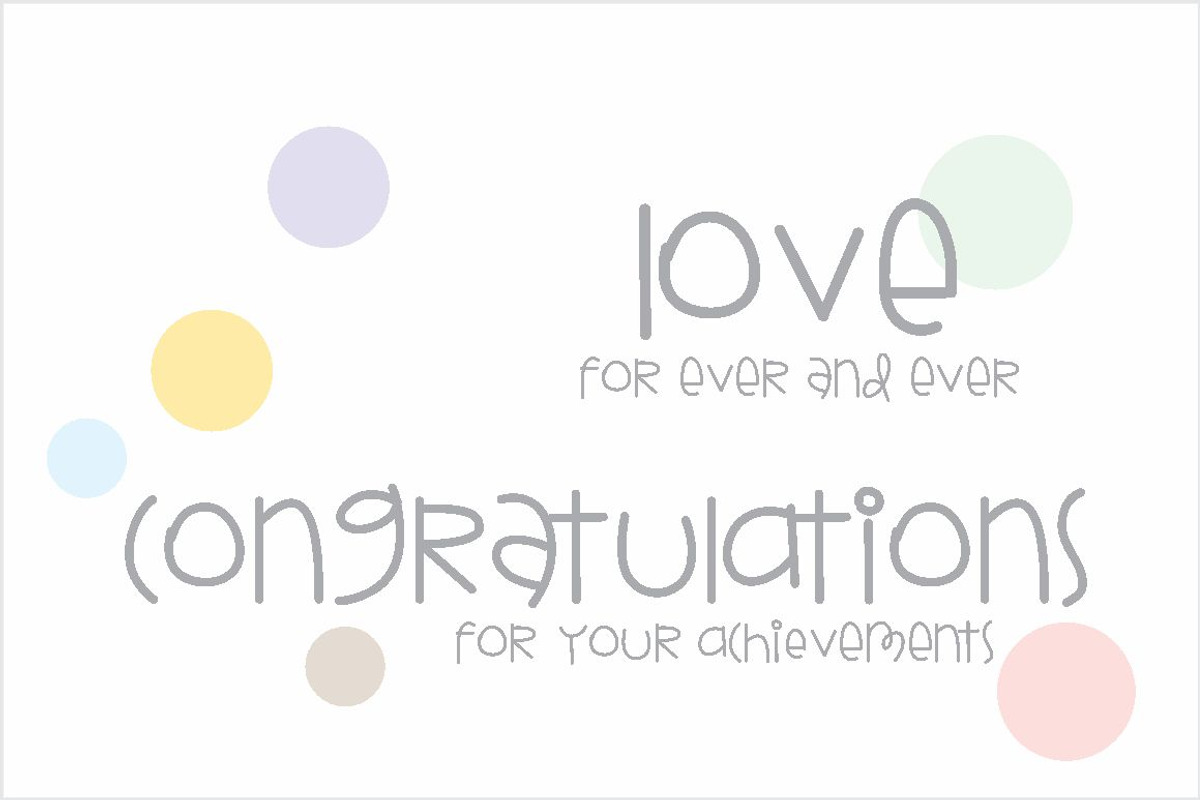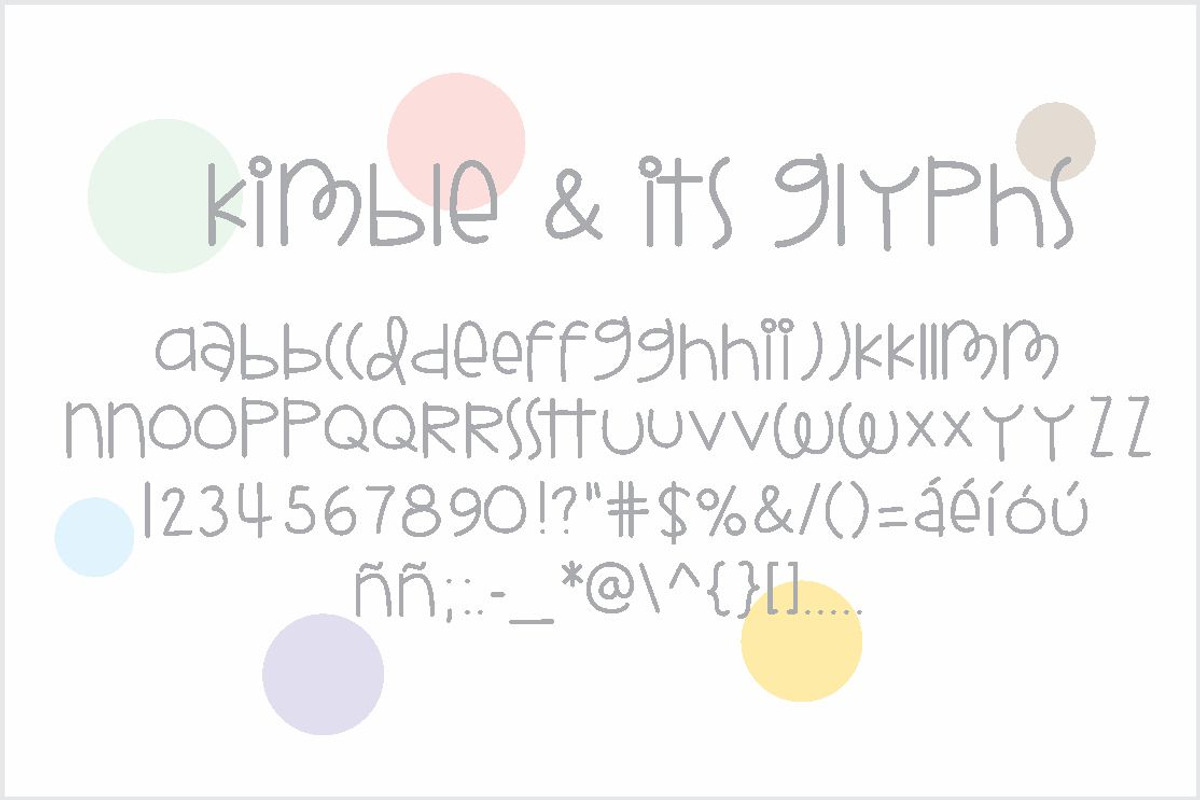
Kimble Font
Kimble Font by Fonts & Printables is a font selected for branding, posters, packaging, typography.
Why Kimble Font is worth a look
Kimble Font by Fonts & Printables fits naturally into Branding, posters, packaging, typography.